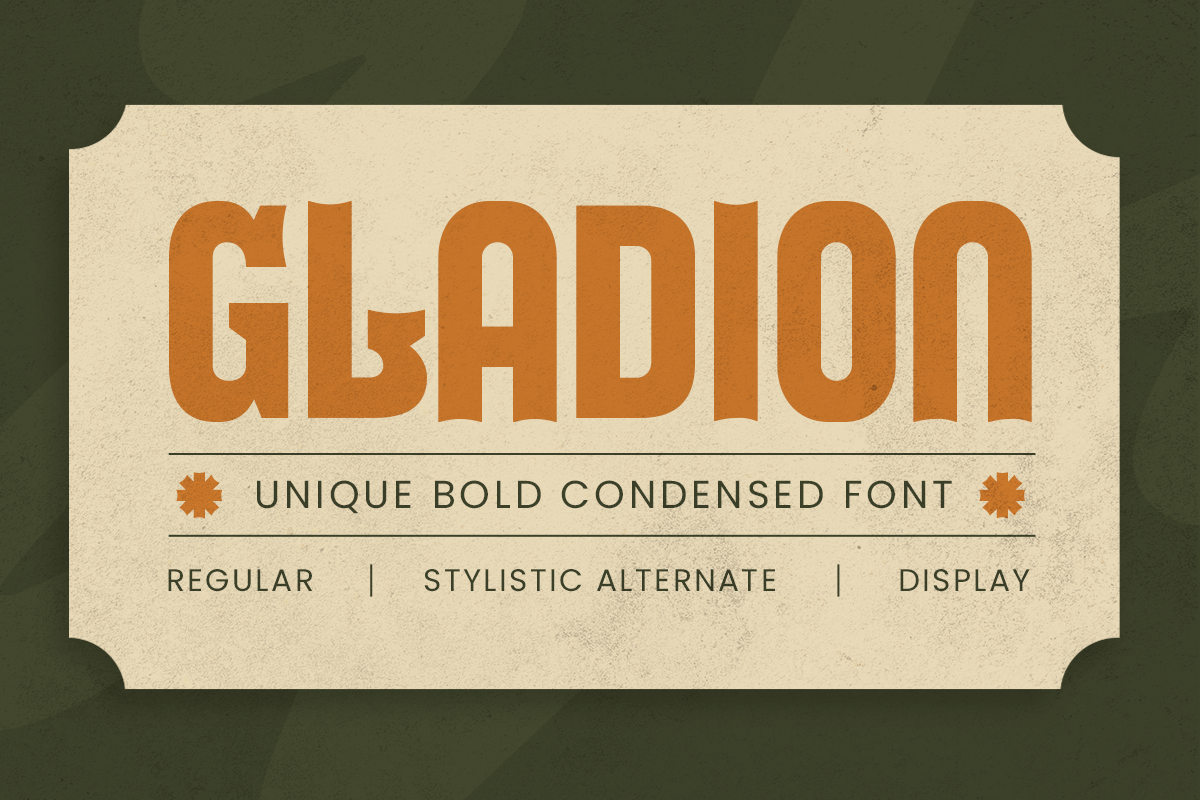
Gladion
-Unique Bold Condensed Font
Gladion - Unique Bold Condensed Font
GLADION is a unique bold condensed font crafted to stand out with confidence. Designed with high-impact visuals in mind, its tall structure and tight spacing make it perfect for attention-grabbing headlines, bold branding, and editorial statements.
Whether you're creating a sports logo, streetwear label, magazine title, or a music cover, GLADION delivers a fearless tone through its bold strokes and compact style. This font is all about clarity, character, and commanding presence. Its distinctive forms offer just enough uniqueness without compromising legibility — making GLADION a smart choice for both modern and vintage-inspired layouts.
GLADION – Bold Condensed Font Features:
• Bold & compact condensed letterforms
• Distinctive style with strong visual weight
• Ideal for logos, posters, packaging, and more
Let your visuals roar with GLADION – the bold condensed font that makes every word command attention. 🛡️📢